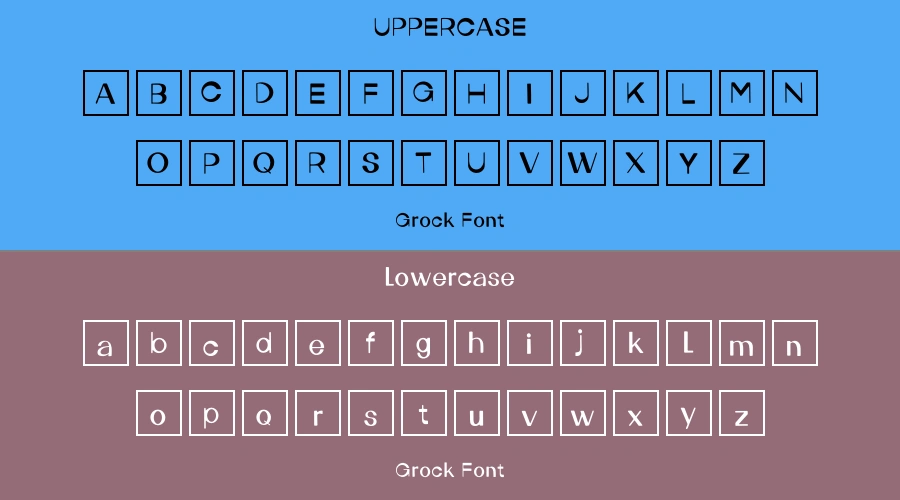
About Grock Font
Designed with precision, Grock Font merges refined proportions with accuracy in every character. This versatility makes it particularly effective for engineering specs, where distinctiveness and aesthetic excellence directly impact communication quality. Each letterform demonstrates meticulous craftsmanship.
Technical excellence shines through elements like ornamental details and tabular figures, enhancing typographic versatility. In editorial spreads settings, Grock Font proves its worth through superior archive stability. The thoughtful execution of loop structure and standards alignment ensures professional results.